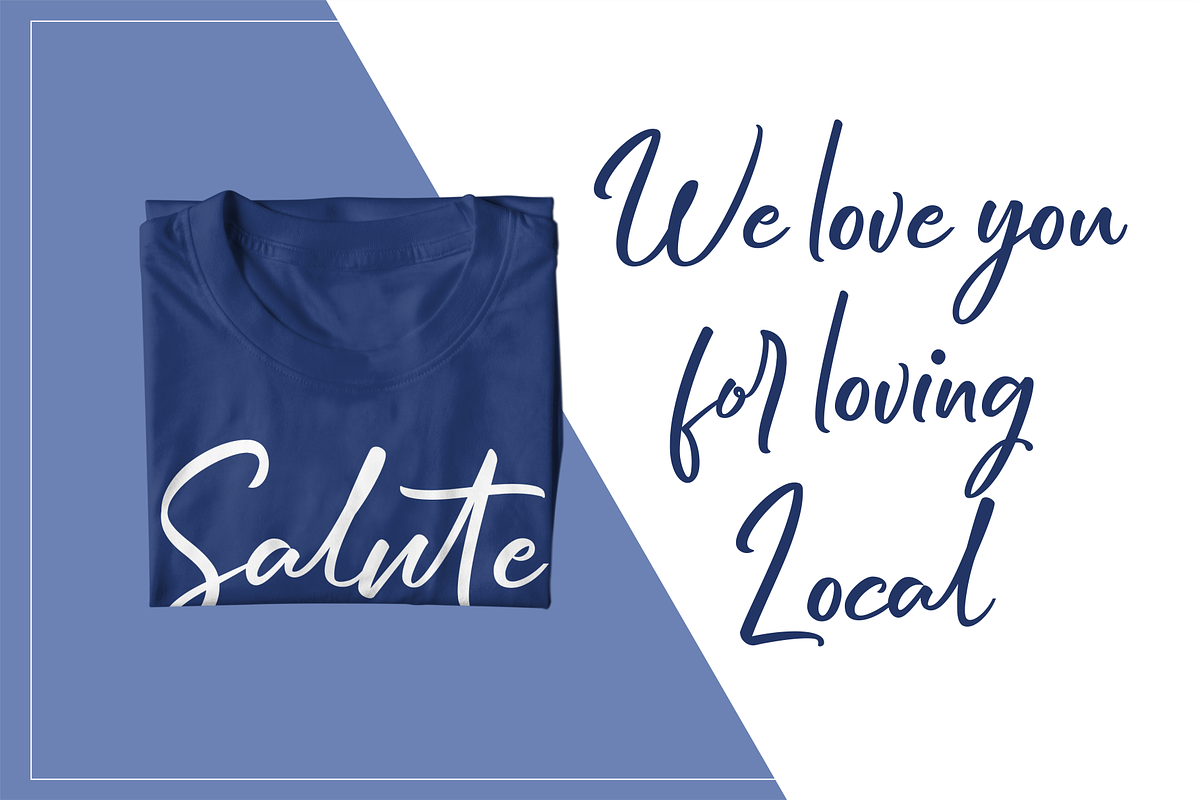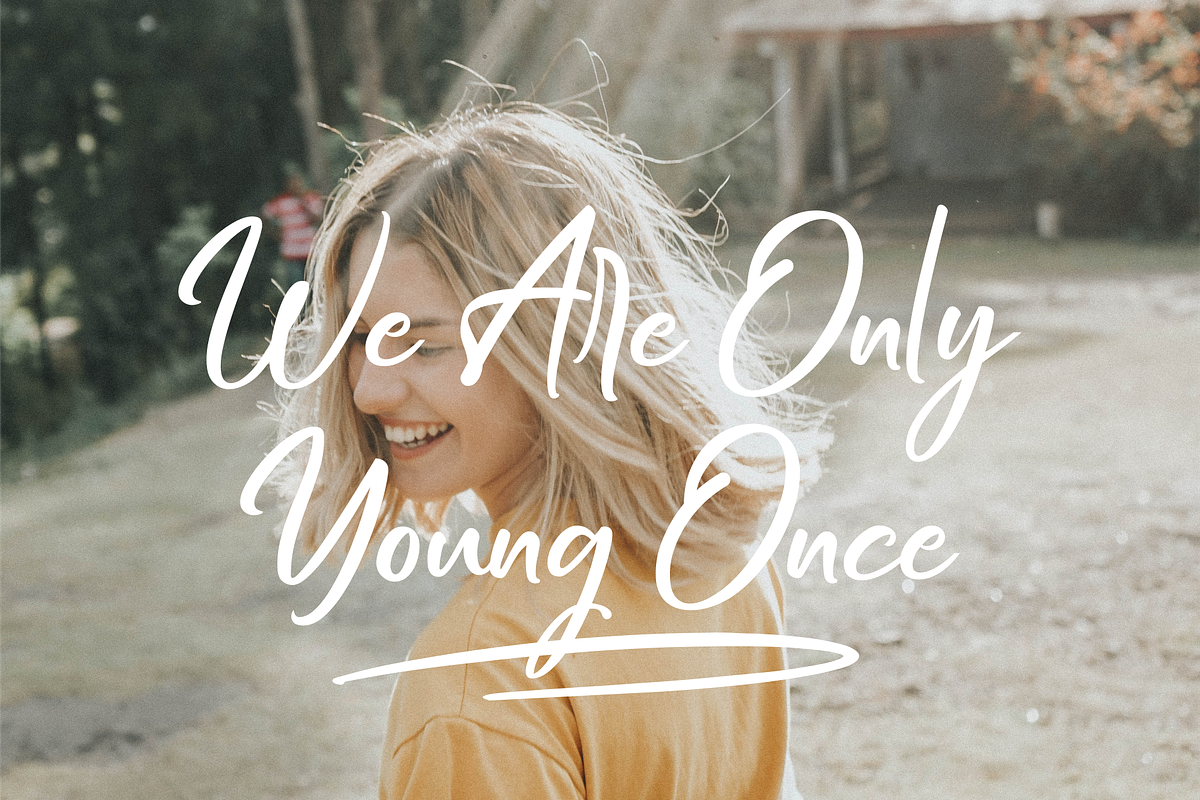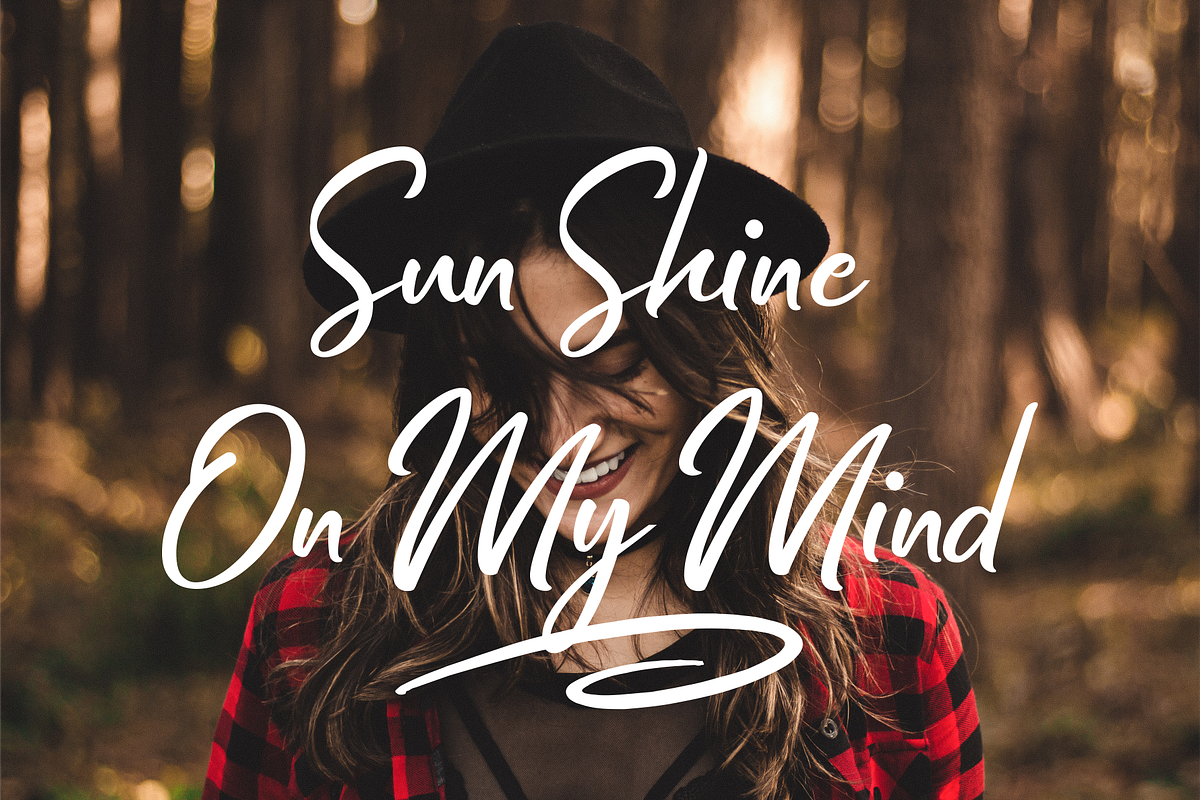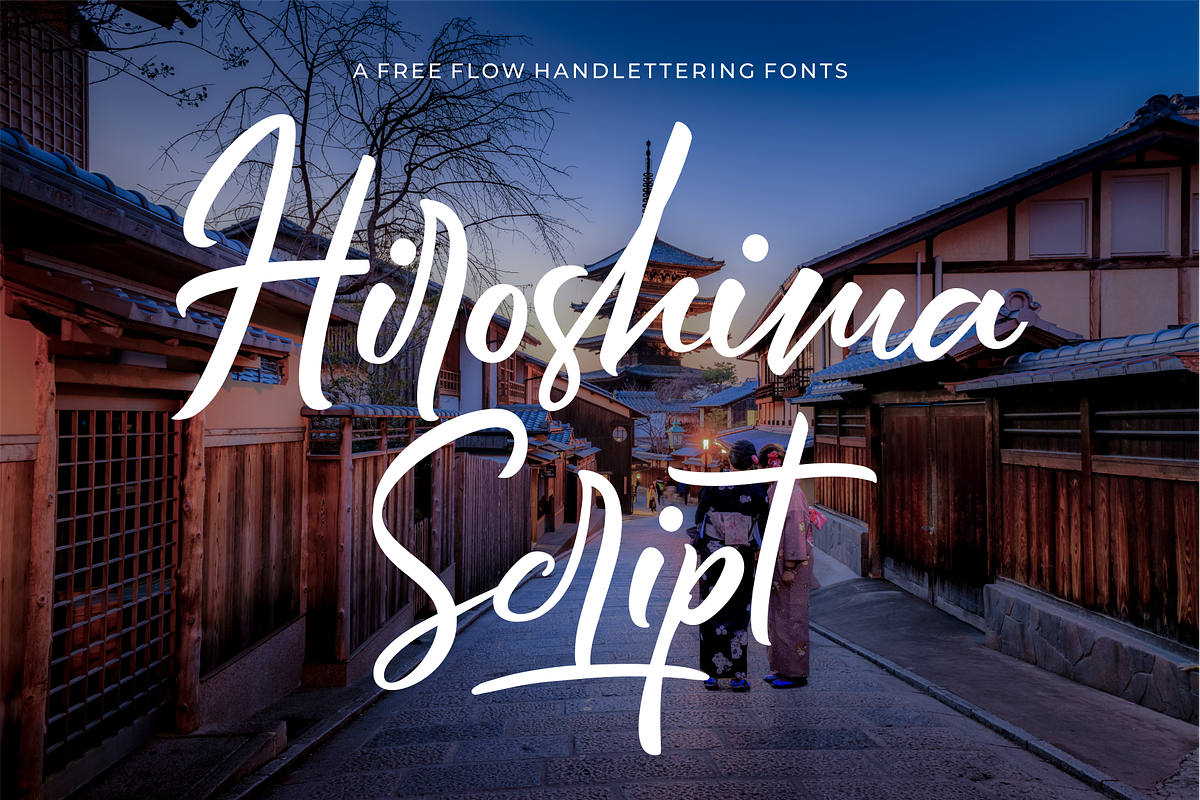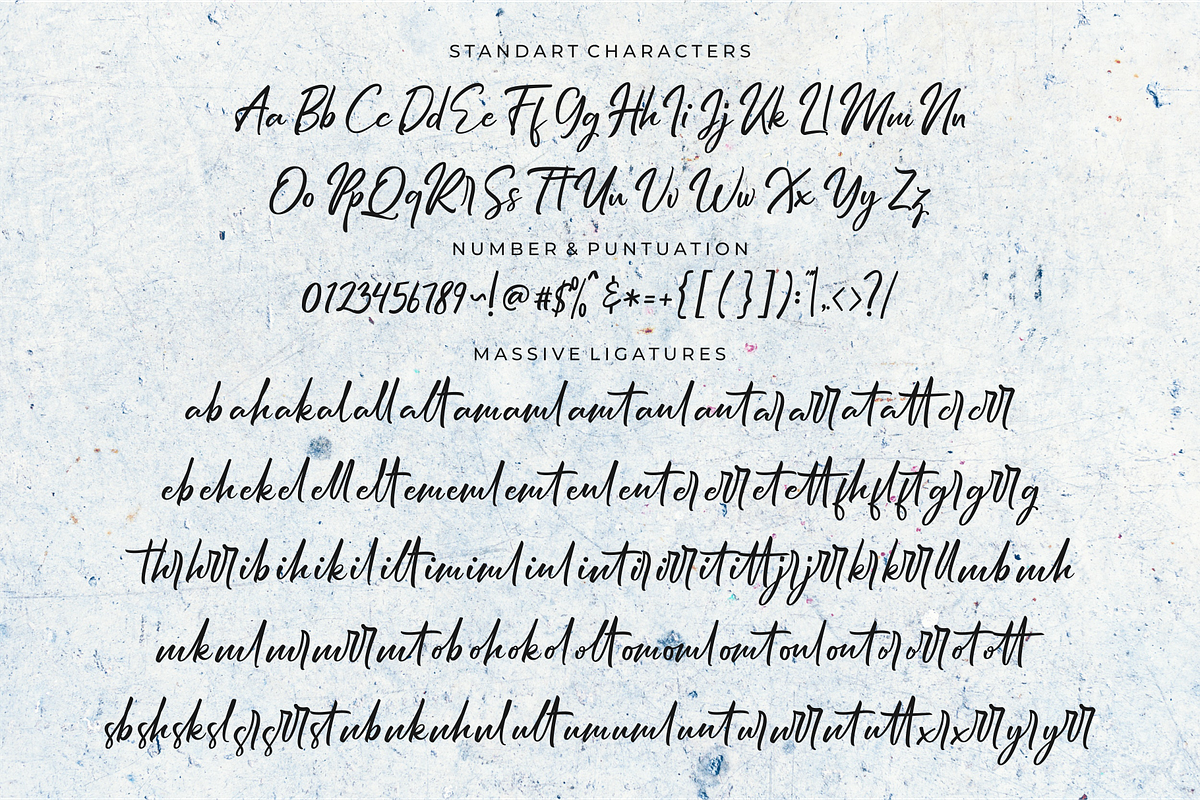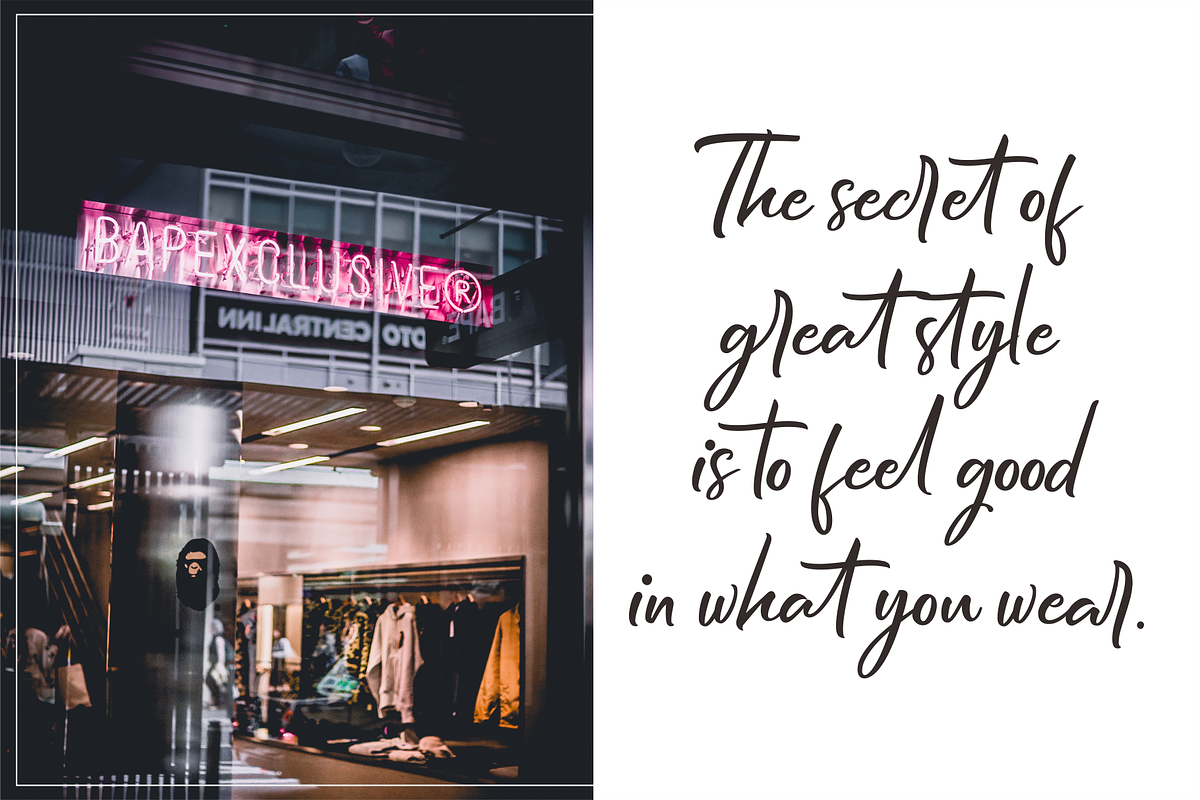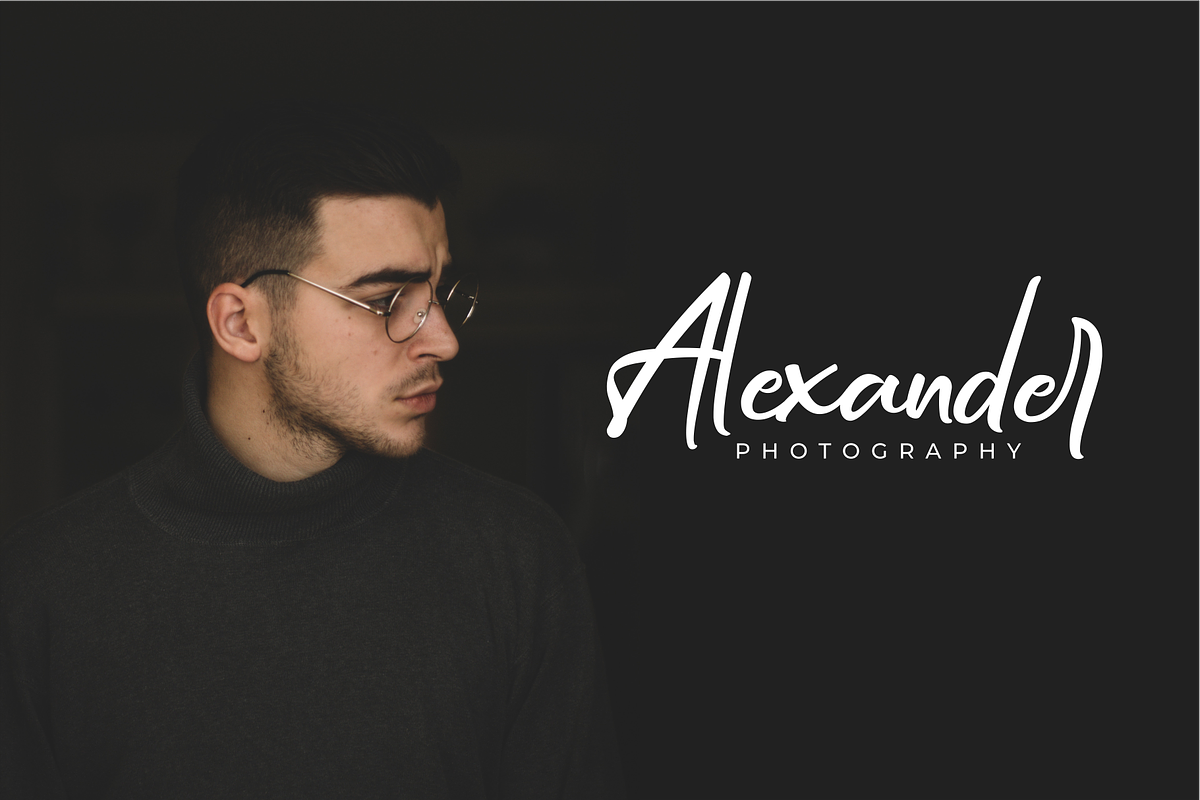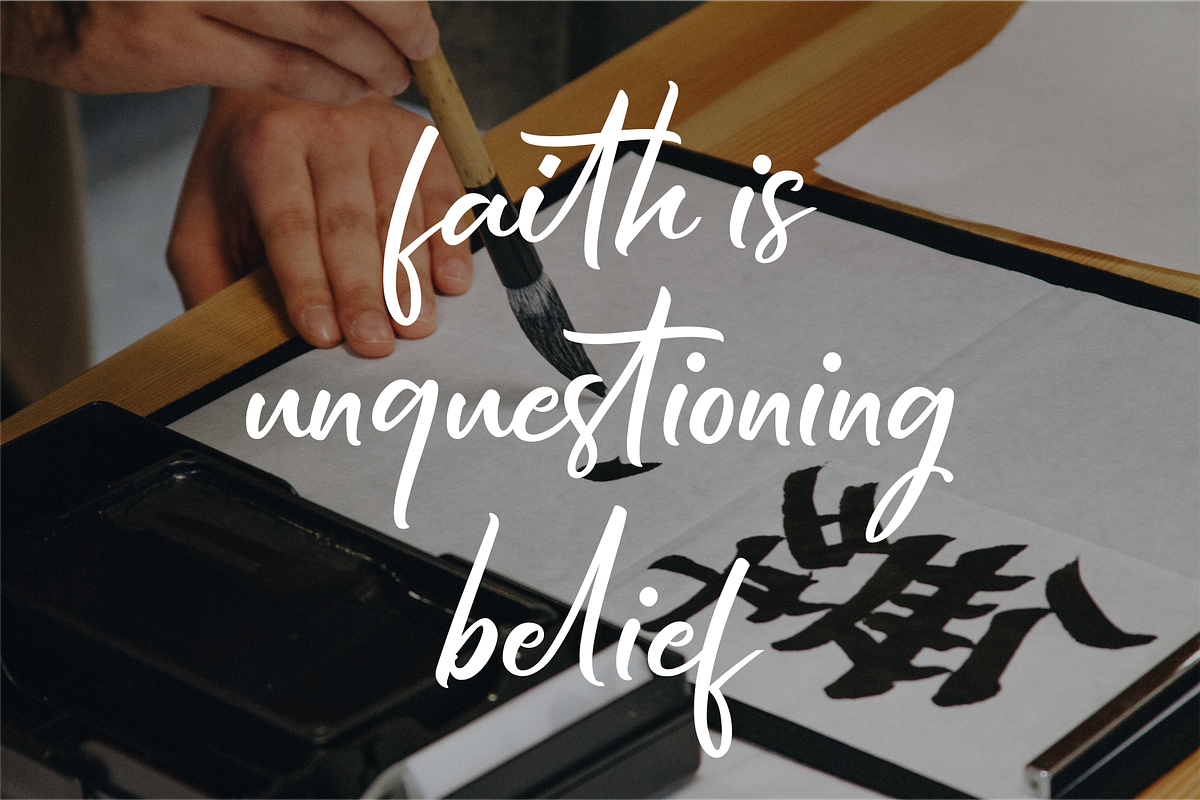
Hiroshima Script Font
Introducing the Hiroshima Script Font a casual and fabolous font with free flow handlettering (100+ Ligatures) inspired by indie clothing. This fonts also perfect for your next creative project such as logotype, printed quotes, badge, insignia, packaging, headline, poster, t-shirt/apparel, label and greeting card.
Why Hiroshima Script Font is worth a look
Hiroshima Script Font by 50Fox fits naturally into Branding, posters, packaging, typography.